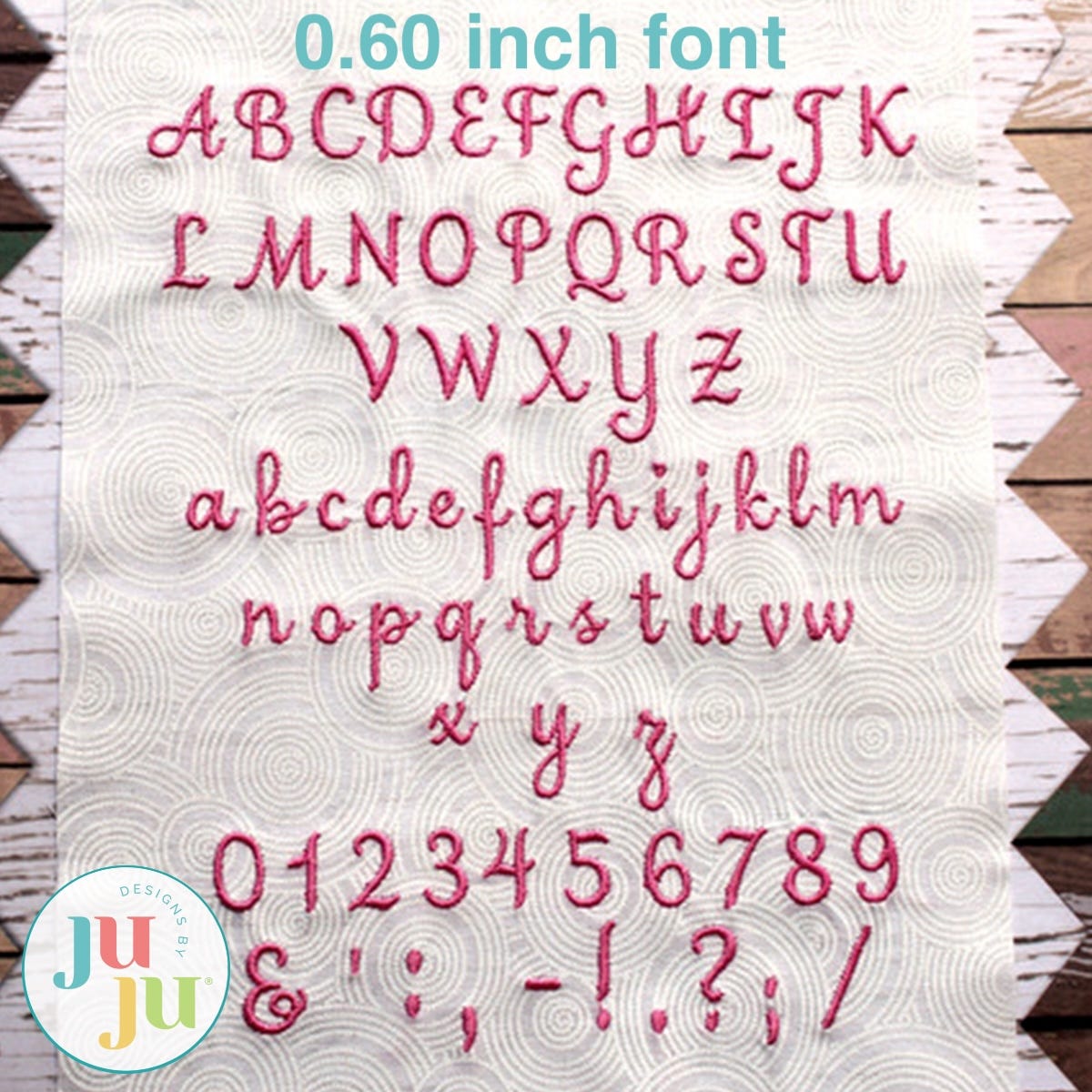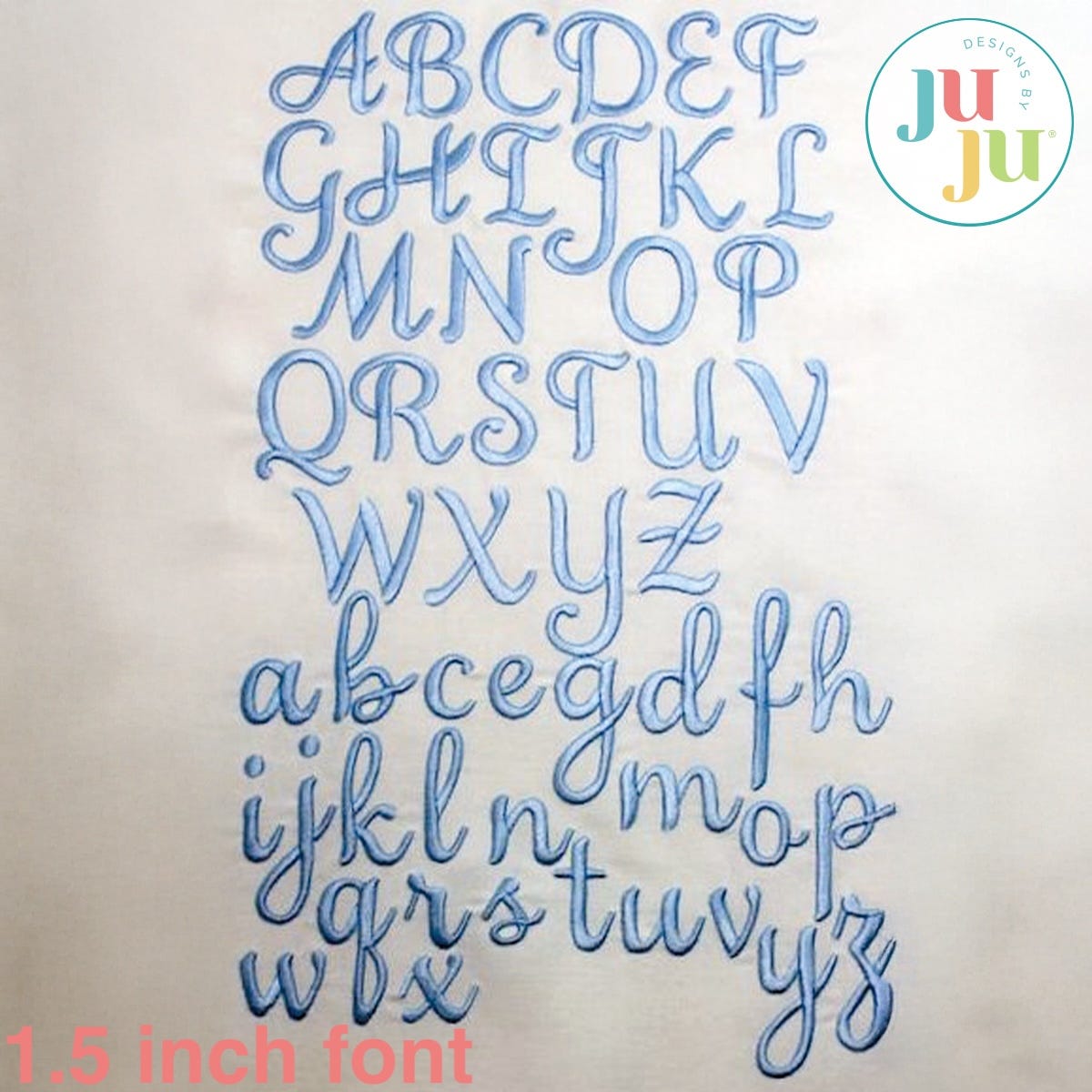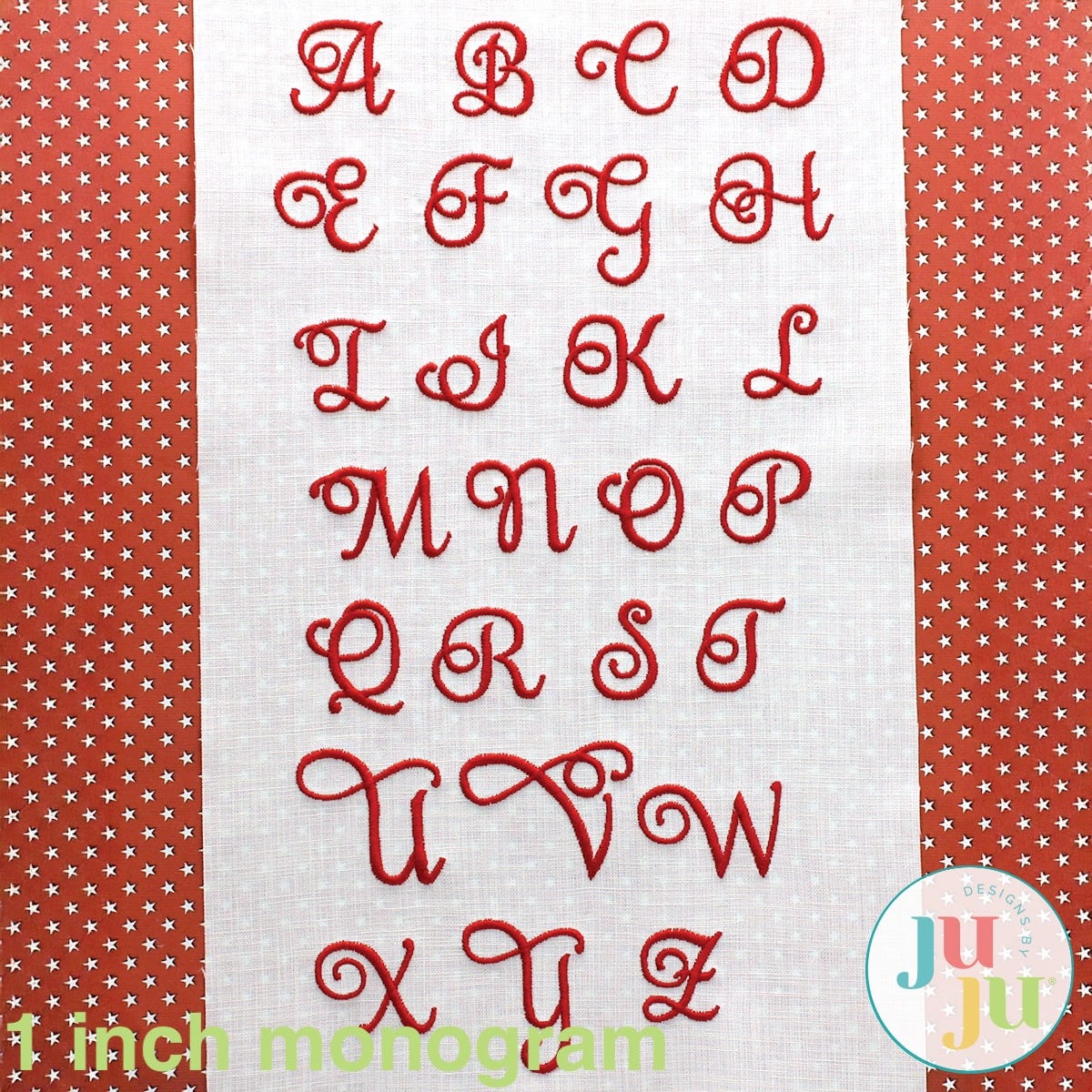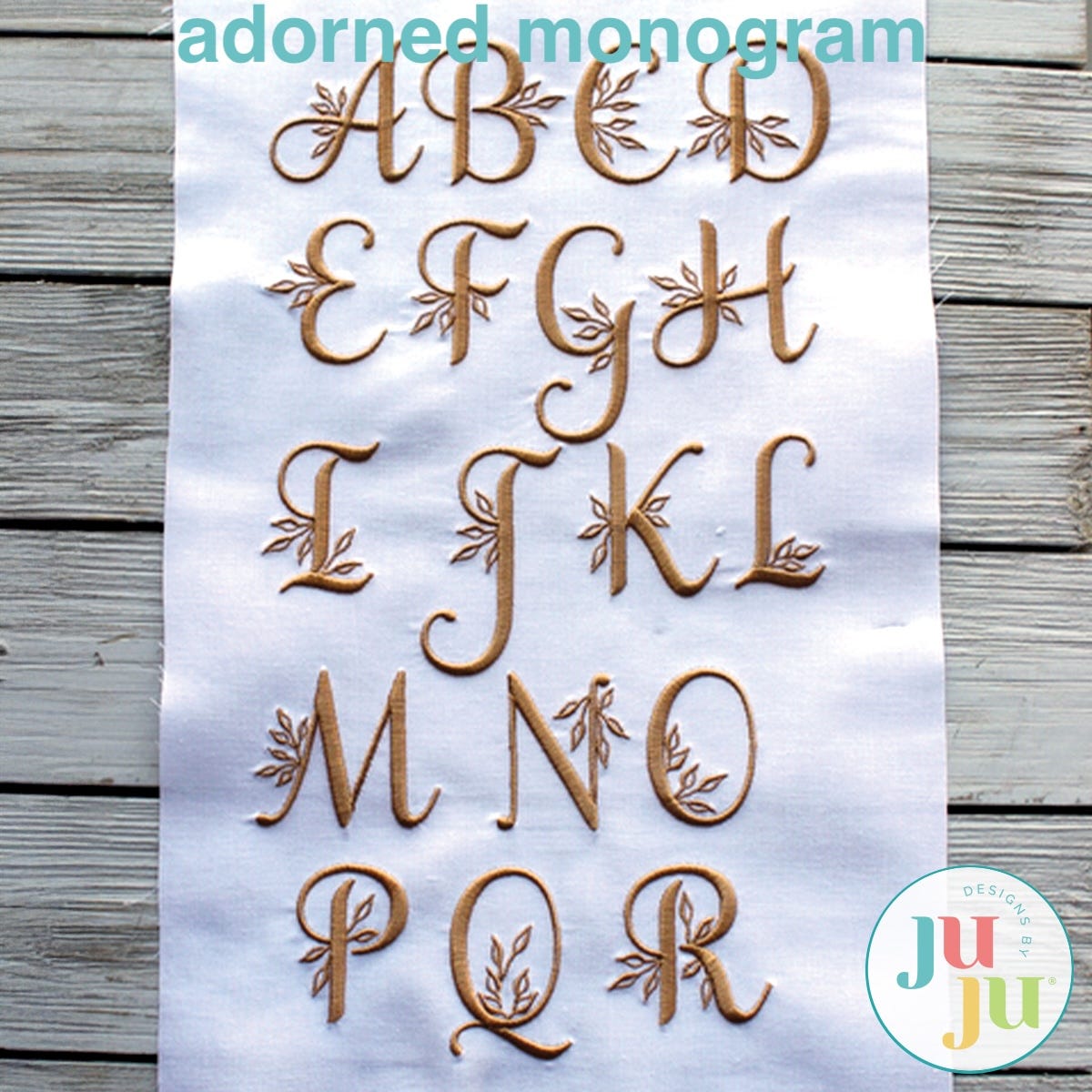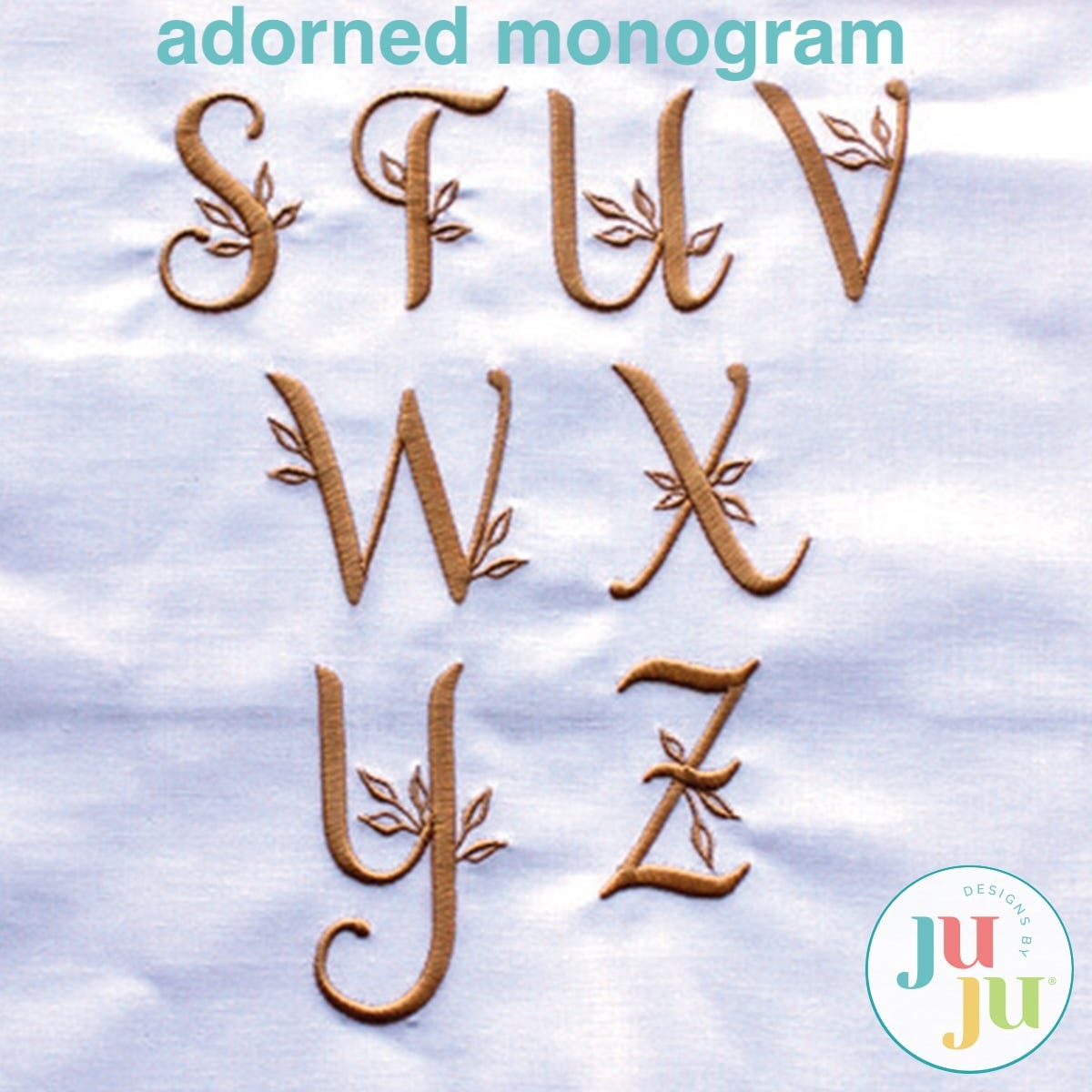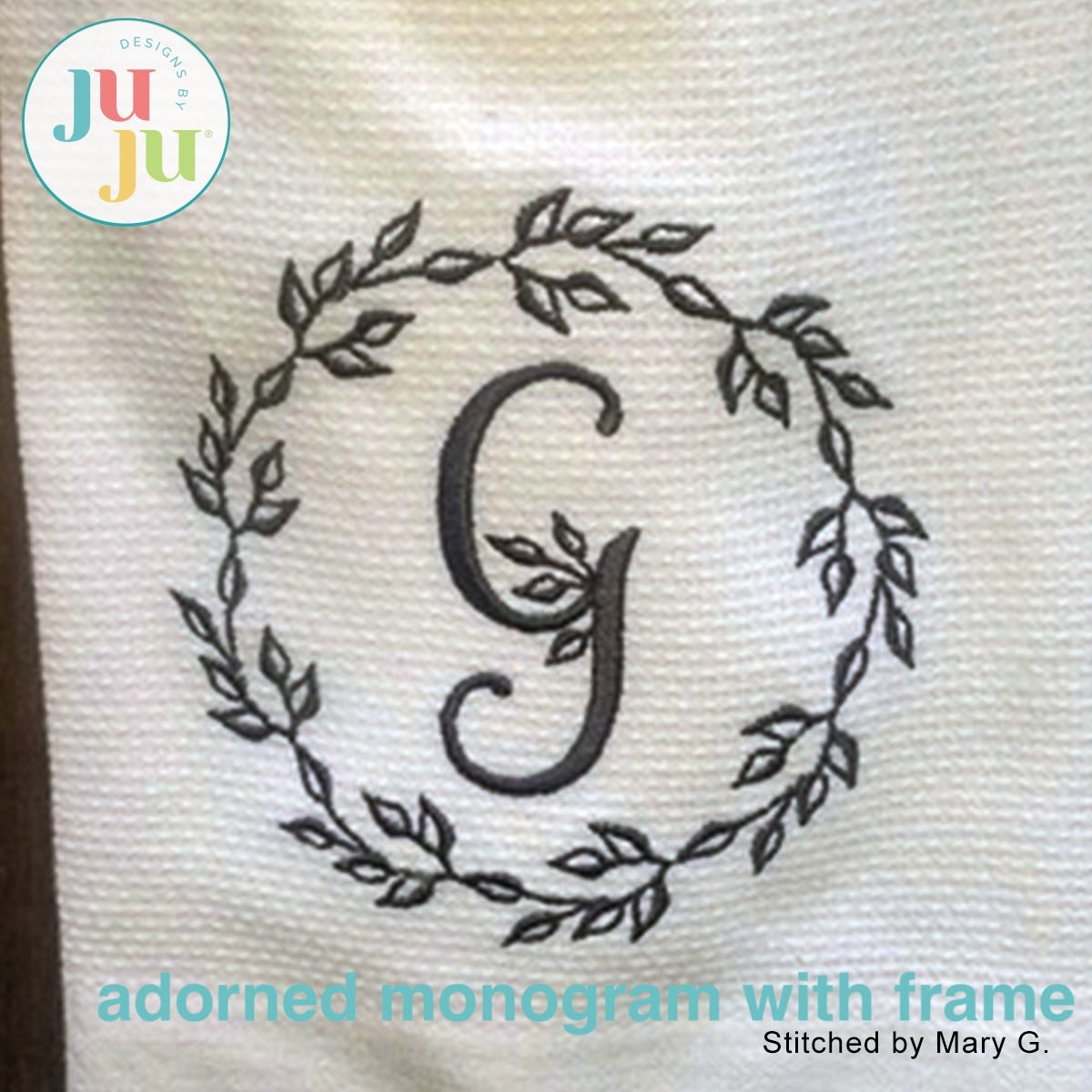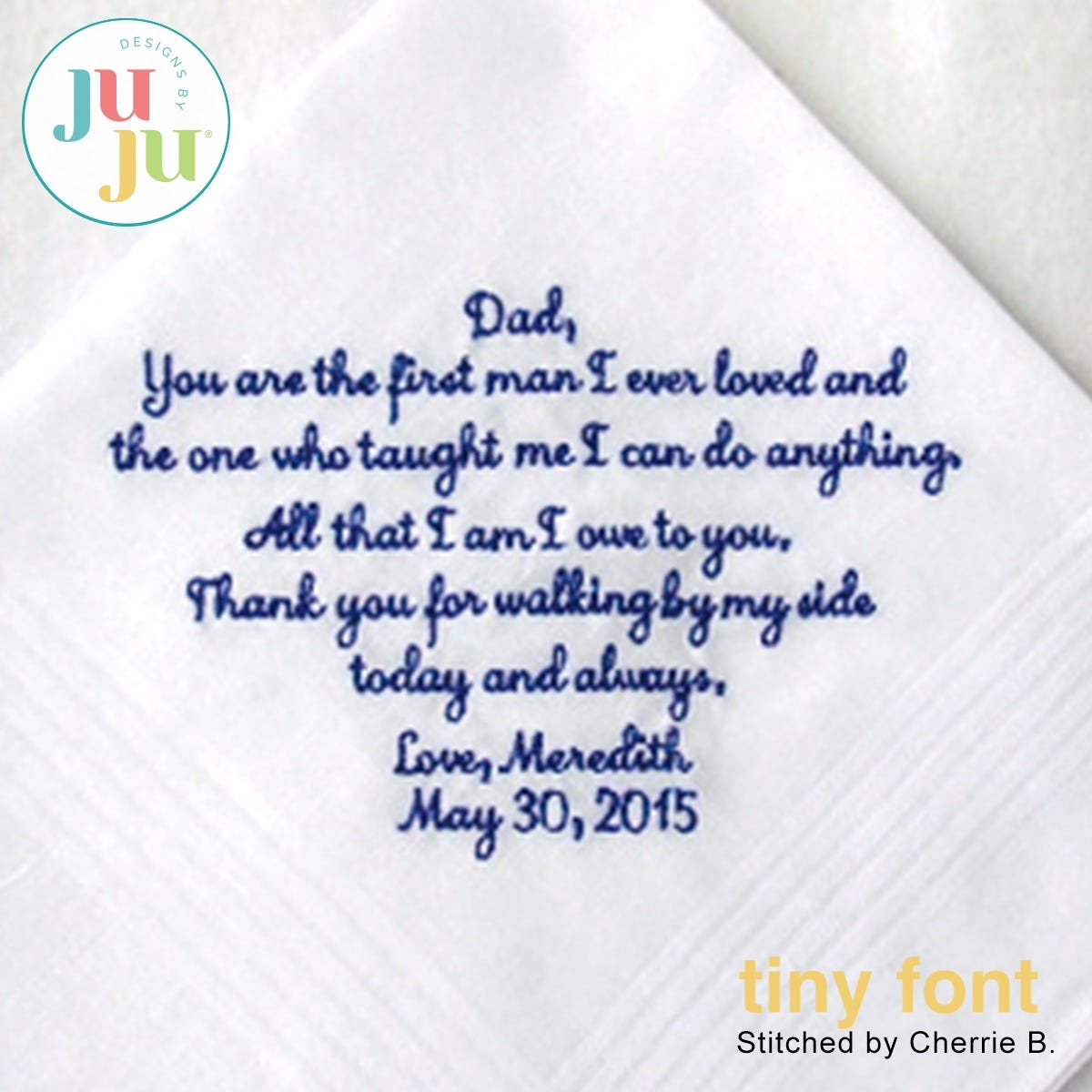
Samantha Embroidery Font and Monogram by Oma's Place
The Samantha Font and Monogram Collection by Oma's Place combines our most loved embroidery fonts and monograms into one elegant bundle. From tiny lettering to larger bold styles, this versatile set is perfect for everything from delicate napkins and handkerchiefs to standout personalization on hand towels, pillows, and more. Each font and monogram has been carefully digitized for smooth stitching and professional results.
The adorned leafy monogram adds a classy, decorative touch, while the variety of font sizes for the full alphabet ensures versatility for all hoop sizes. Whether you're creating gifts, home decor, or custom projects, this collection provides the perfect lettering option every time.
Design Features
• Includes multiple Samantha font sizes: tiny through large
• Elegant monogram option
• Adorned leafy monogram option with frames
• Perfect for gifts, linens, home decor, and more
• Carefully digitized for flawless stitching results
• Readable, professional lettering across sizes
This collection includes a wide range of font sizes for flexibility in your projects:
• Samantha Font: This full alphabet includes upper and lowercase letters, numbers and punctuation. The Tiny version is approximately 0.3" tall. Also included is a 0.6" version and a 1.5" version.
• Samantha Monogram: This is an elegant, swirly syle of the capital letters, intended for use as a single initial monogram. It comes in a 1" size.
• Samantha Adorned Monogram: This leafy monogram comes in a 2" size, and includes four frames and four scroll designs.